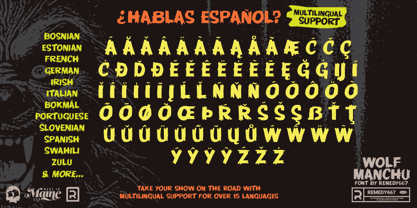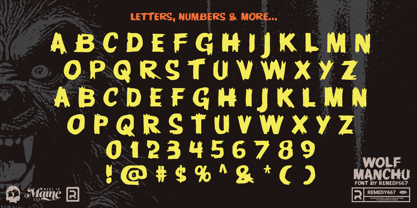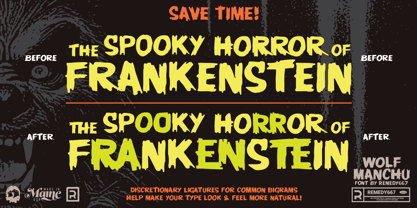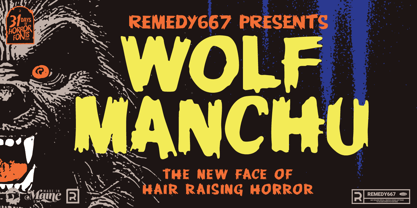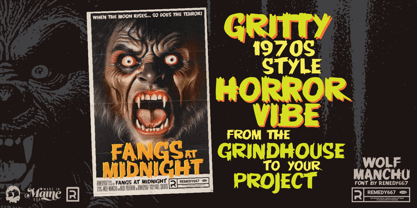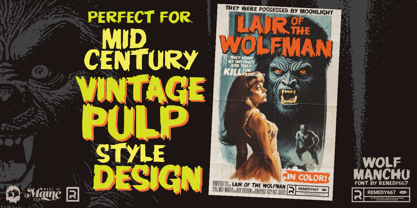
Wolf Manchu
by Remedy667
The Wolf Manchu Font Family was designed by Nick Polifroni and published by Remedy667. Wolf Manchu contains 5 styles and family package options. More about this family
Awooo, little creeps and ghouls! Howl at the moon and summon the spectral spirit of Wolf Manchu! This font is a terrifyingly terrific tribute to 1950s and 60s monster movie posters, western pulp epics, and gritty dime novel covers. It’s the perfect mix of vintage grit and monstrous flair—sure to turn any design into a howling success!
Crafted during the bone-chilling 31 Days of Horror Fonts 2024, Wolf Manchu boasts a complete set of letters, numbers, punctuation, and multilingual support. Whether you’re wrangling cowboys or conjuring creatures, this font will stalk your designs with deadly style. Beware: it’s bound to raise a few hackles!